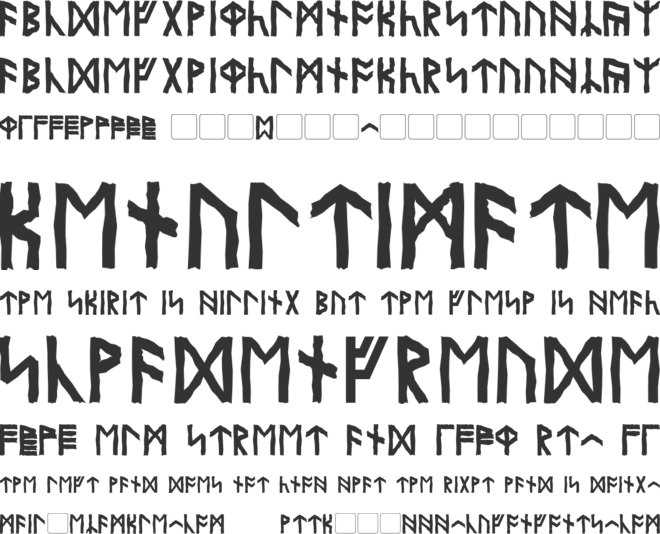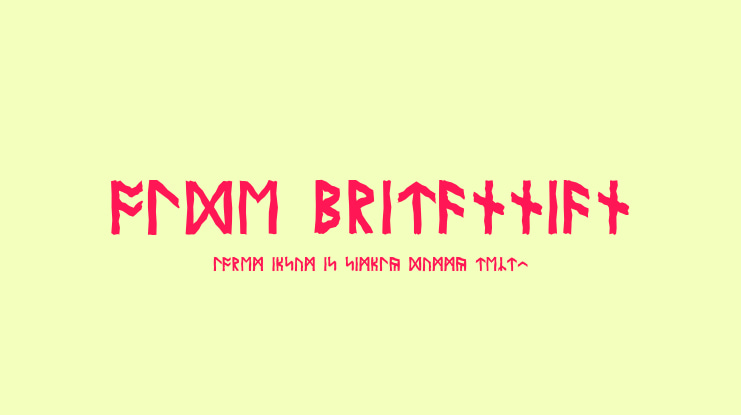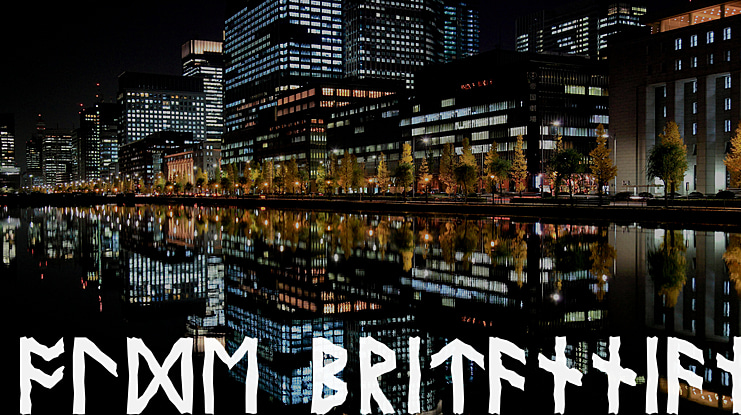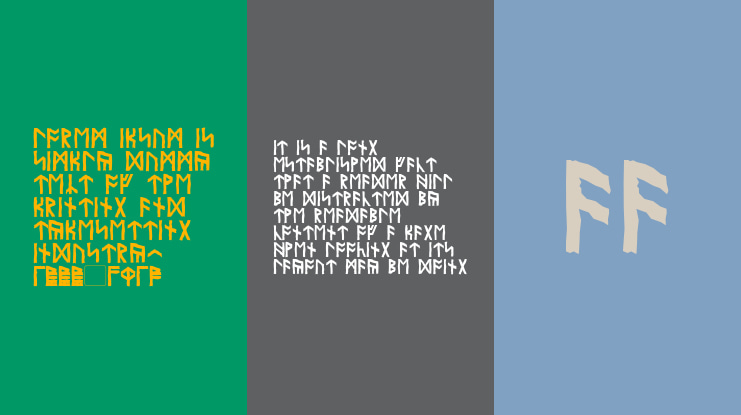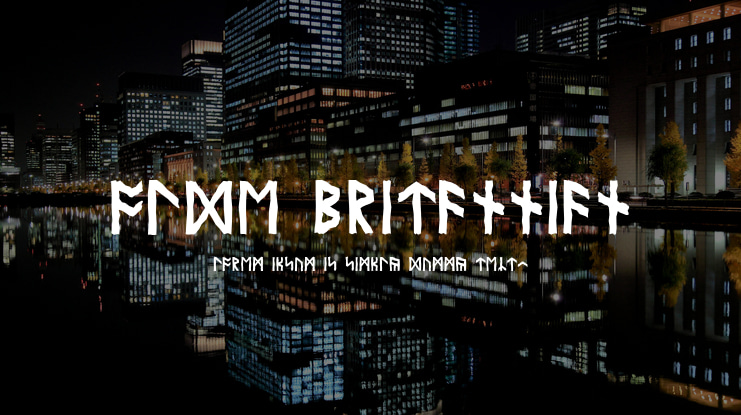
Olde Britannian Font
Old Britannian is an ‘Northern-Runic’ styled face based on the ancient runic language provided by the legendary Origin Systems Ultima games. done with an ancient stone-carved look. Includes canon character, and adopted fandom numerals. (Note: This font updates and replaces Garriott, which is now retired.)